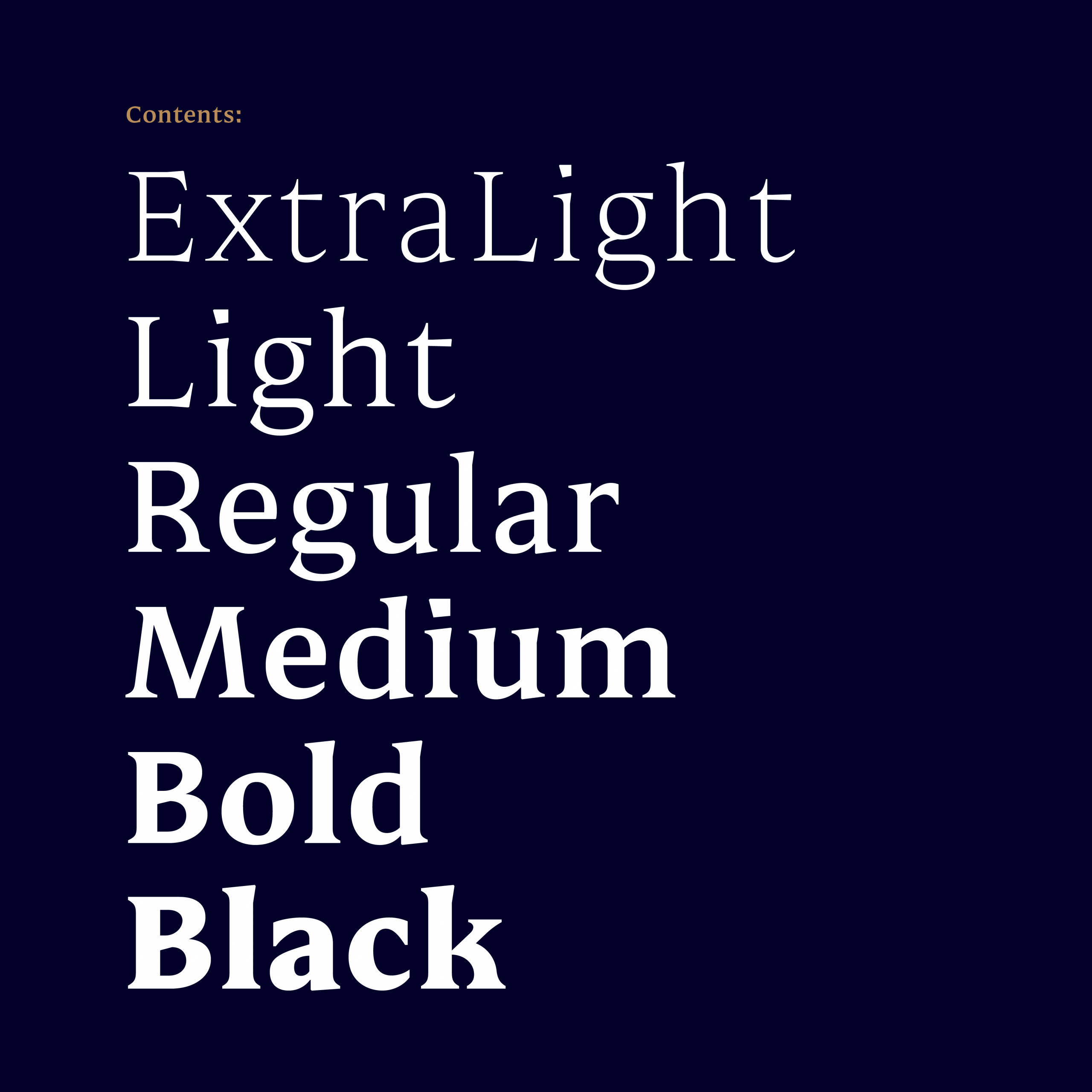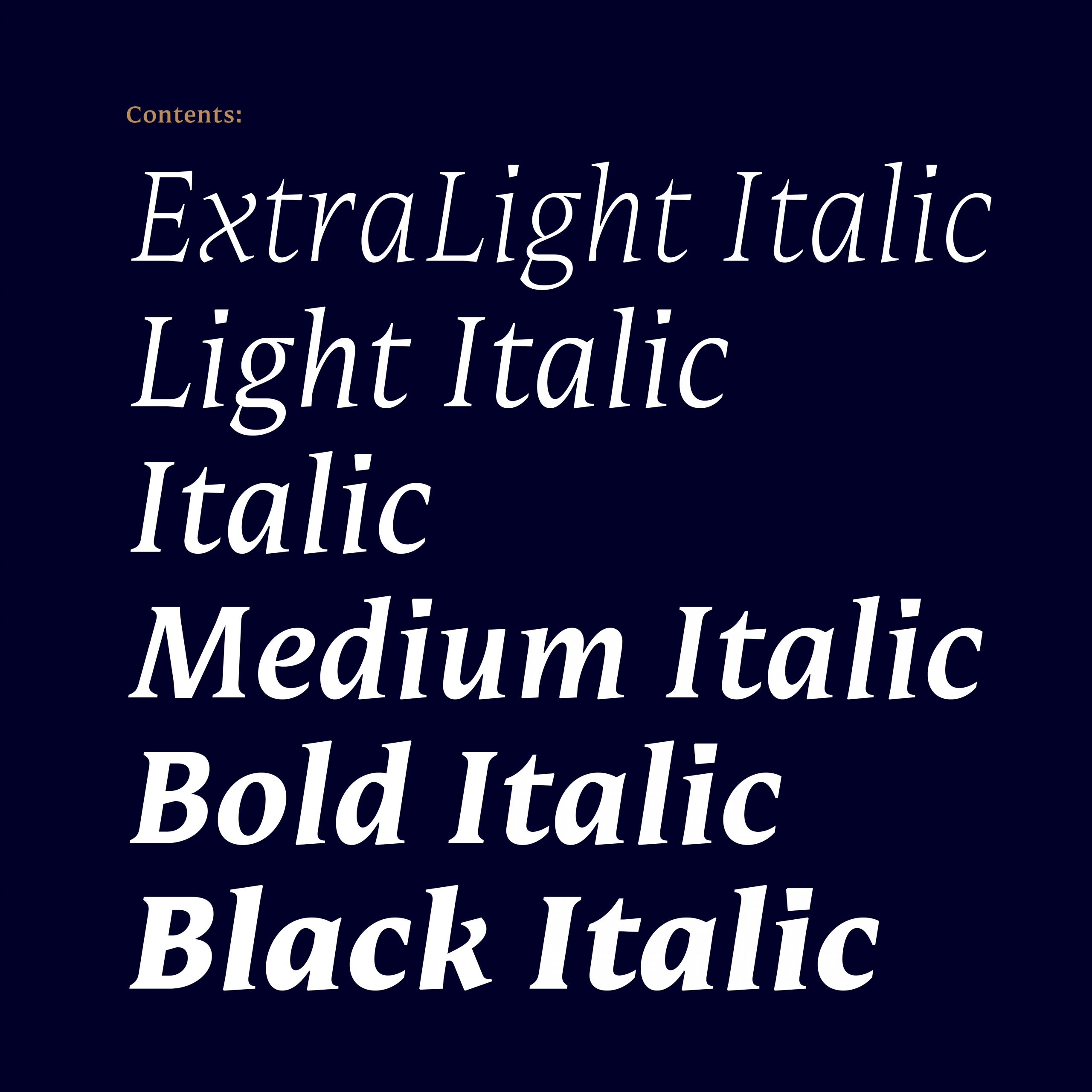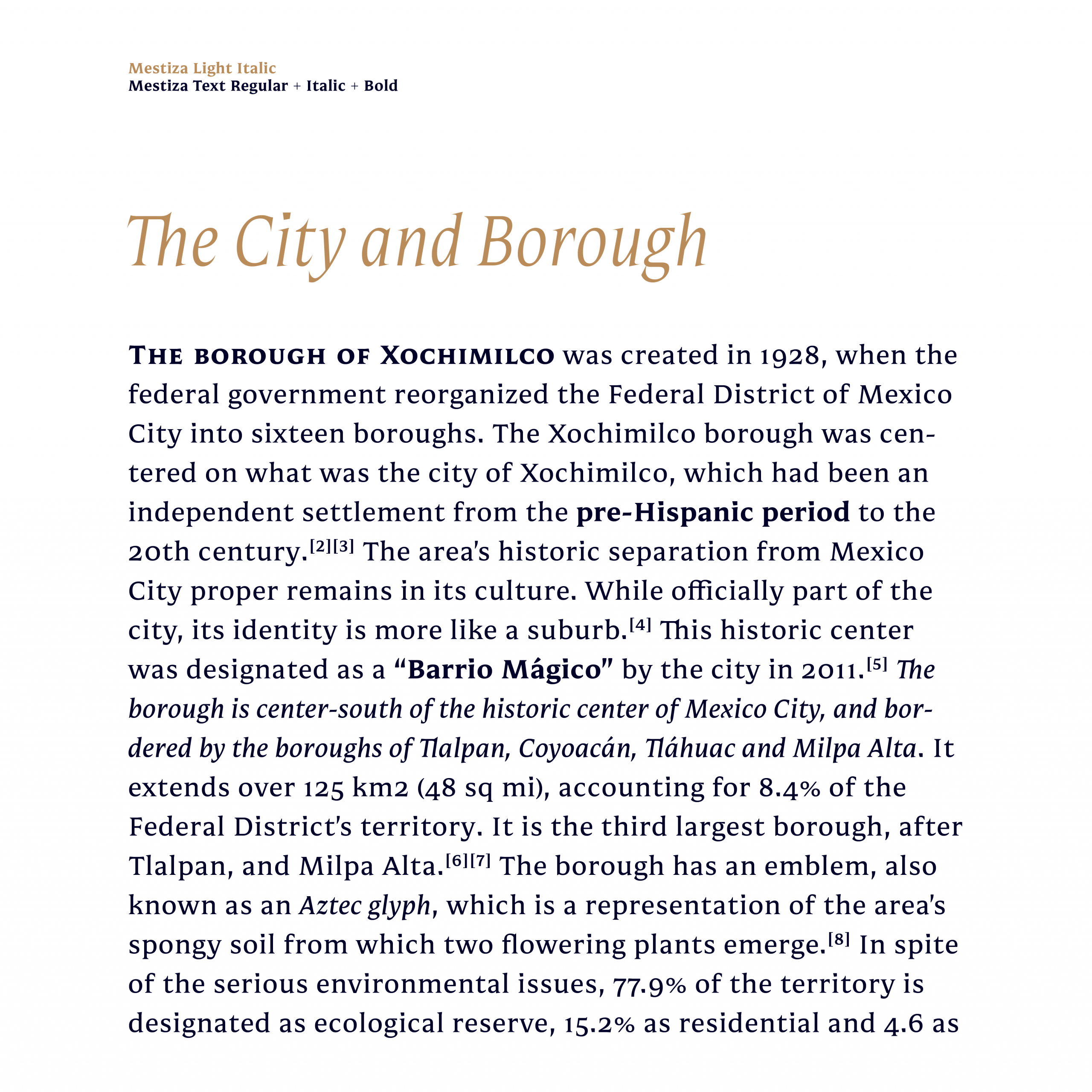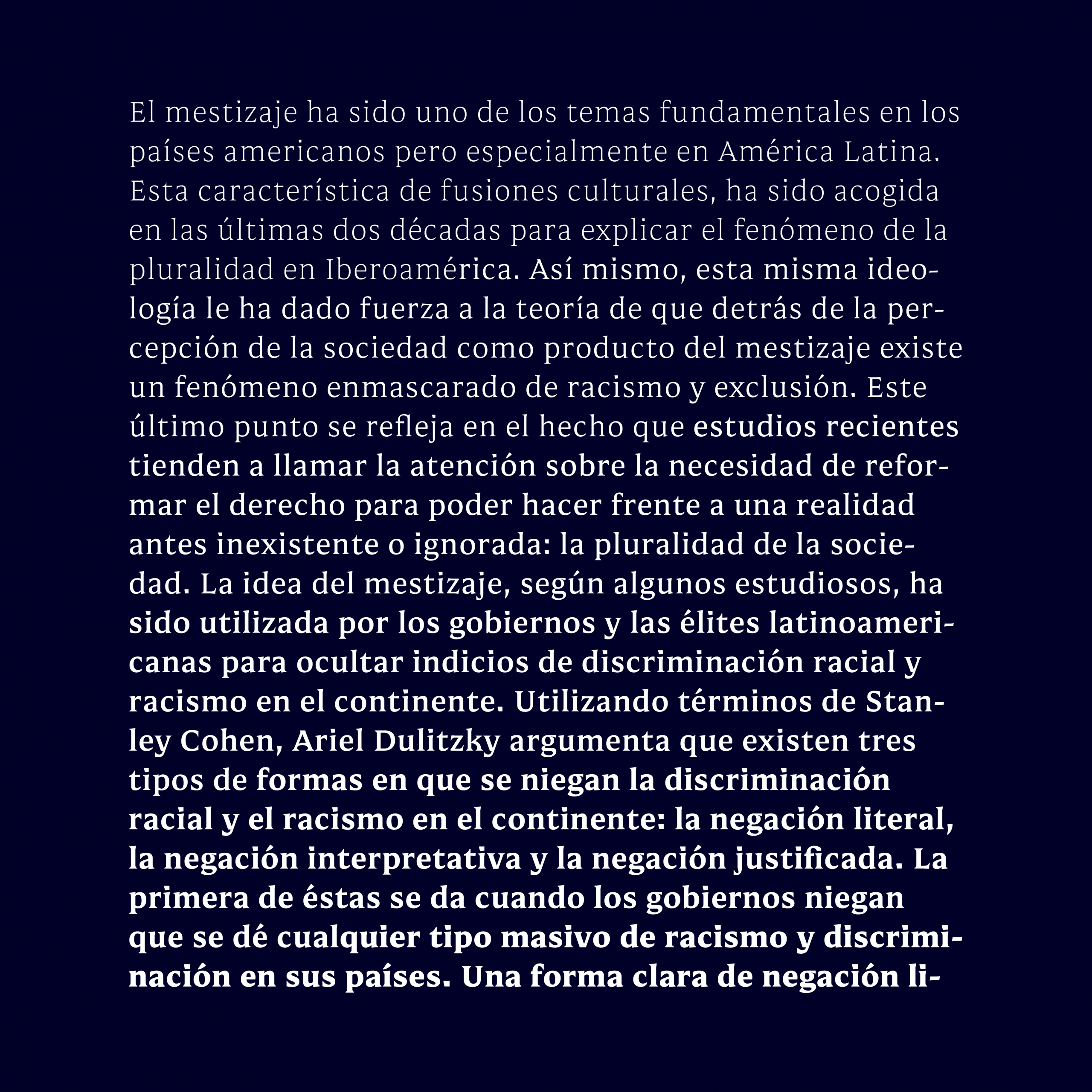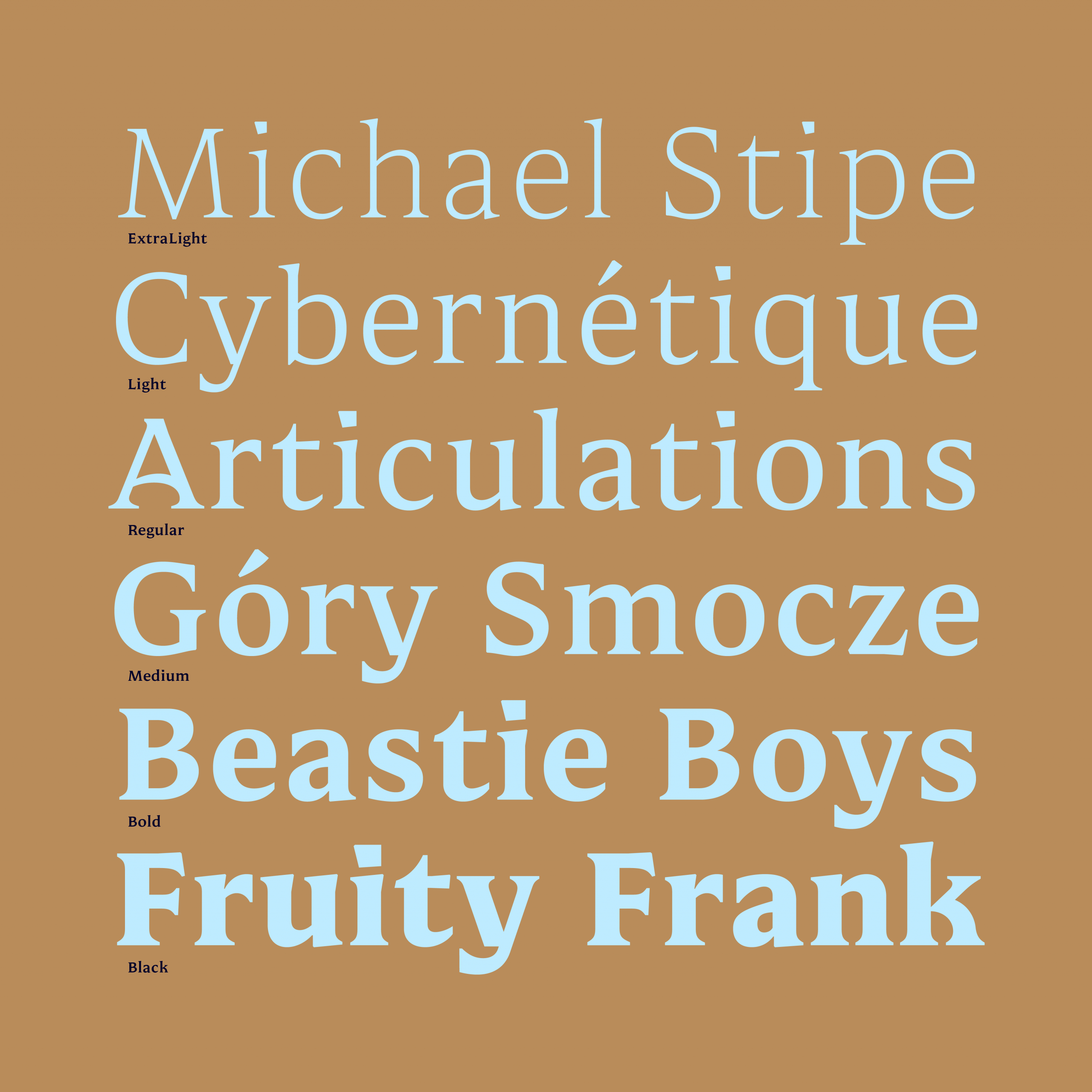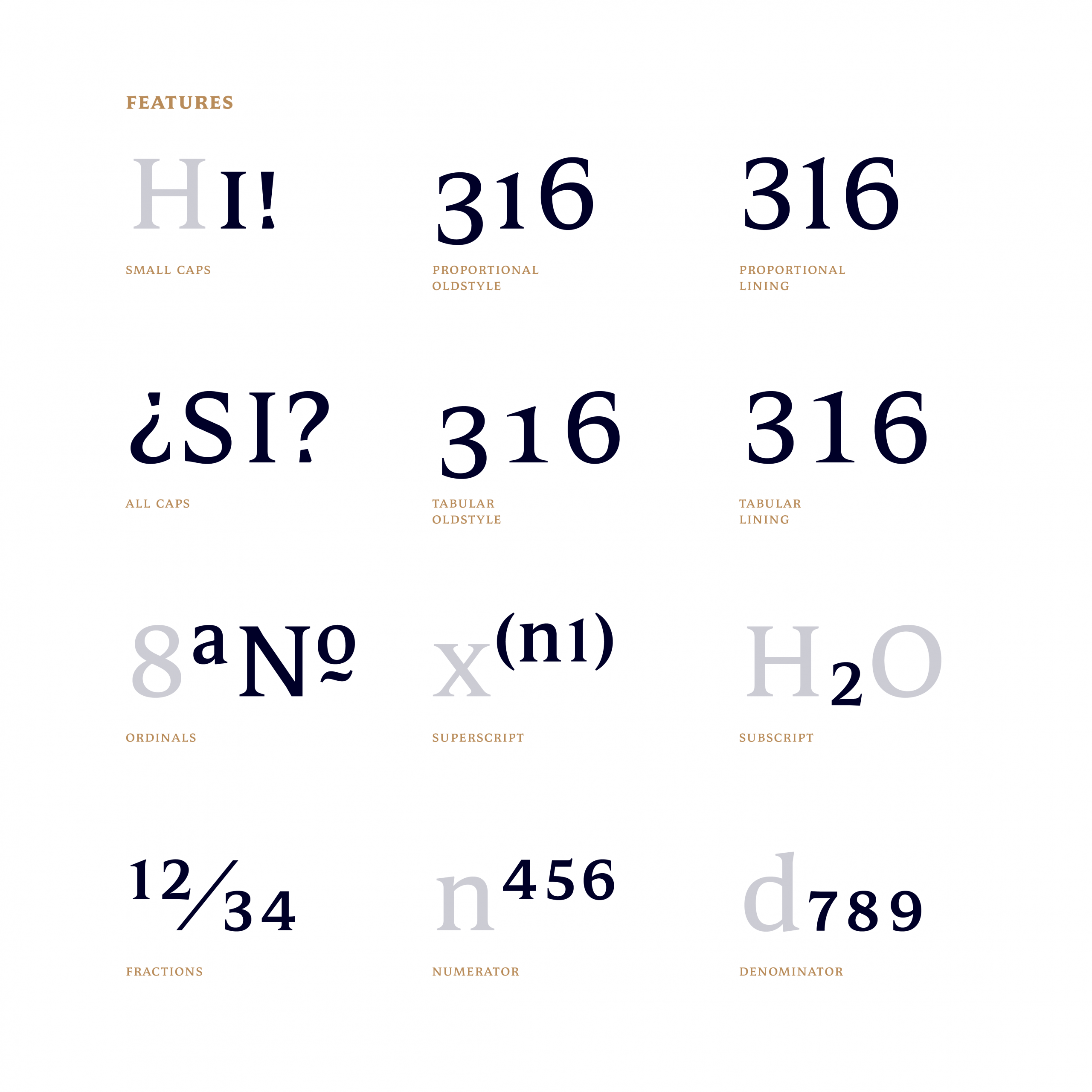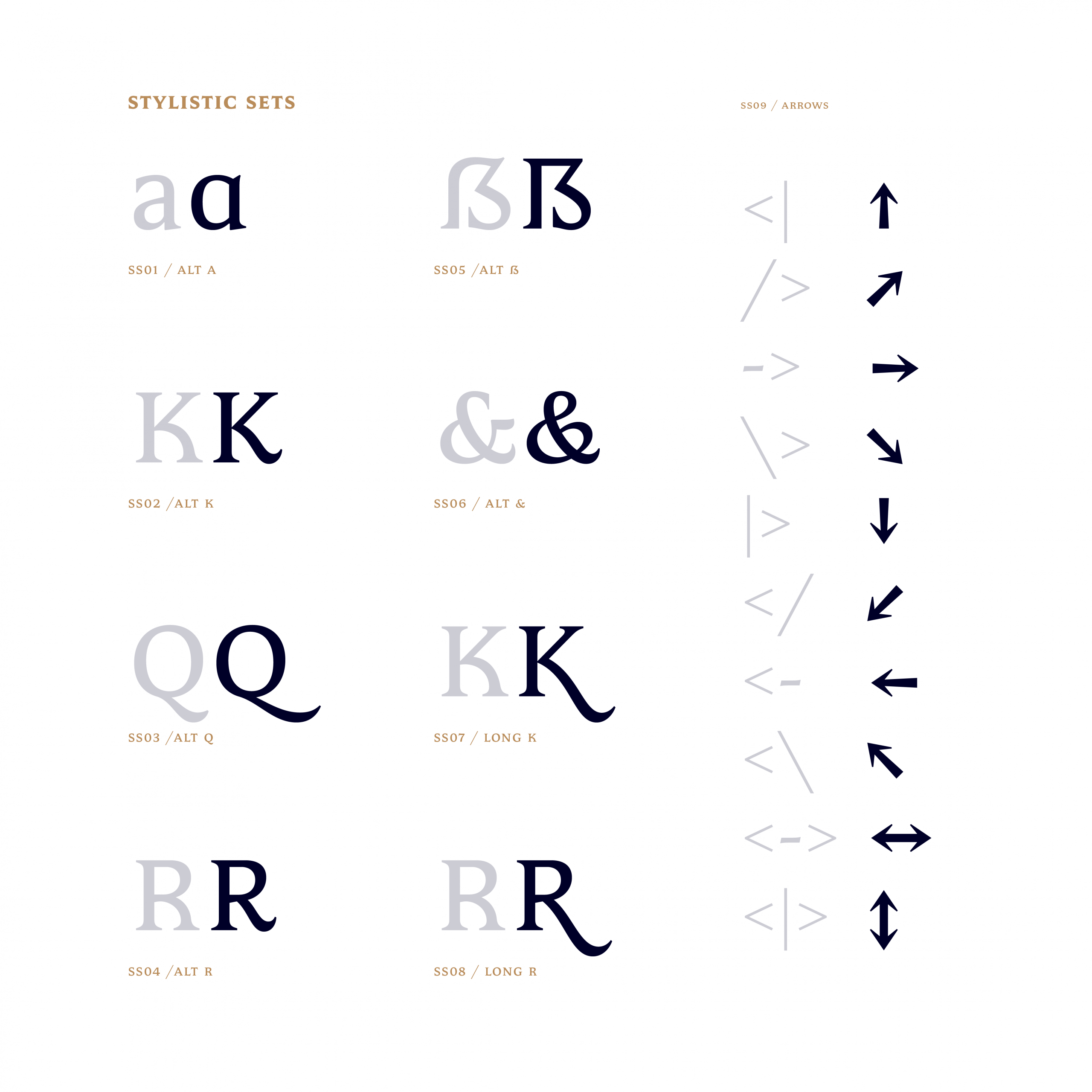
Mestiza Text Web
Mestiza Text is the body text version of the Mestiza system. Ideal for editorial design and branding, it includes over 900 multilingual glyphs, Small Caps, ligatures, alternates, symbols, and six numeral styles. The family features 12 styles—six romans and matching italics—offering a refined and flexible typographic system.